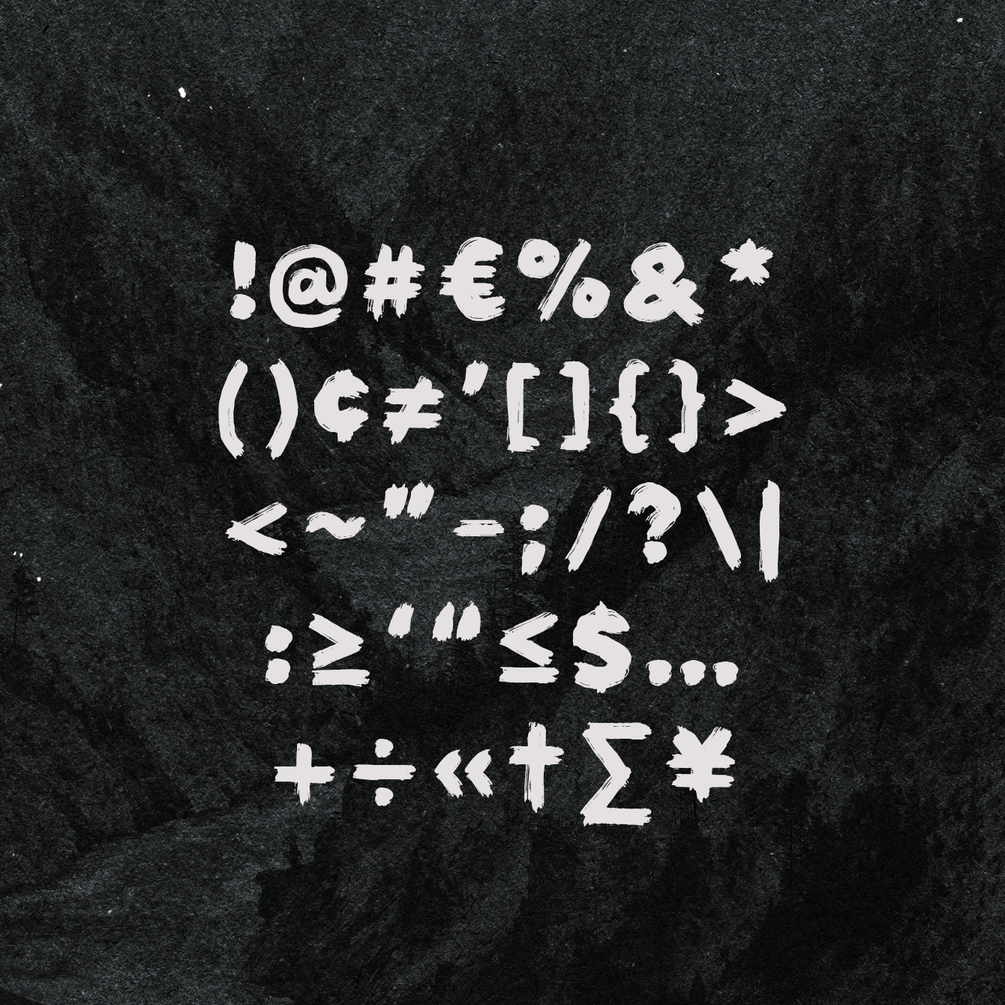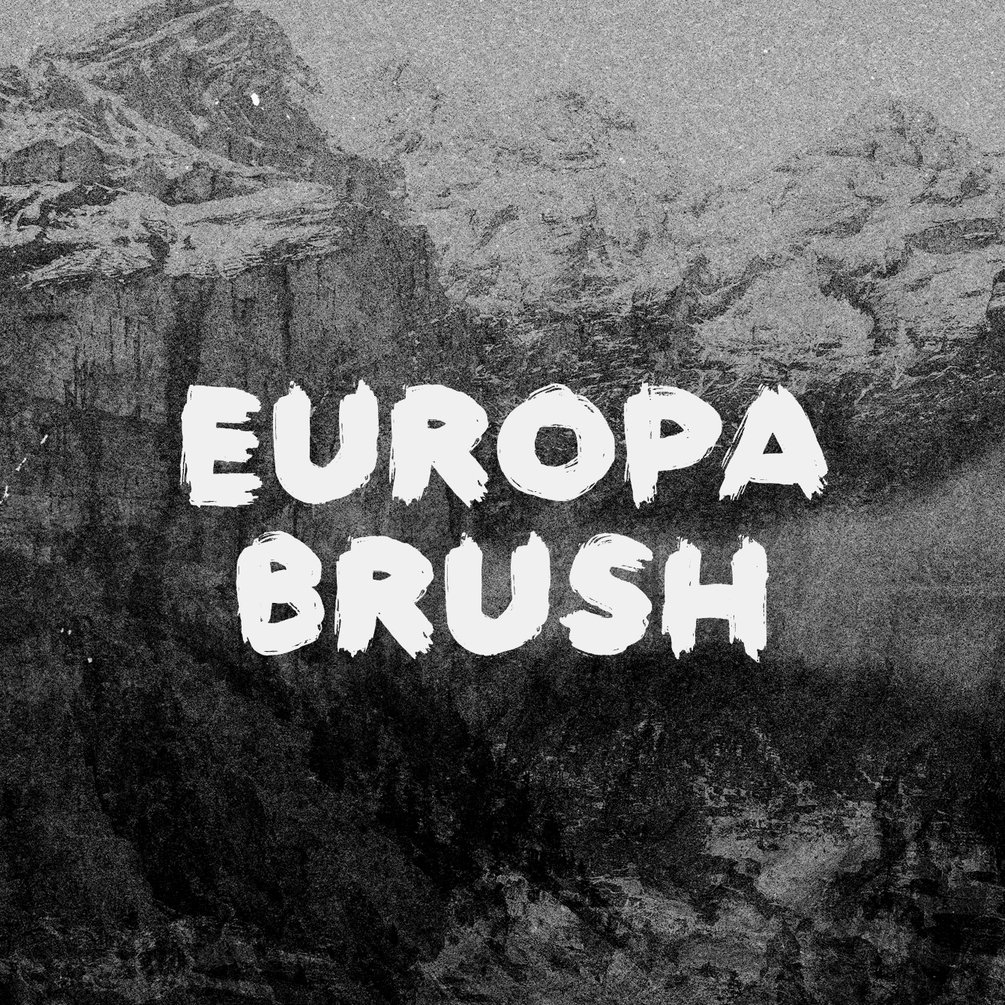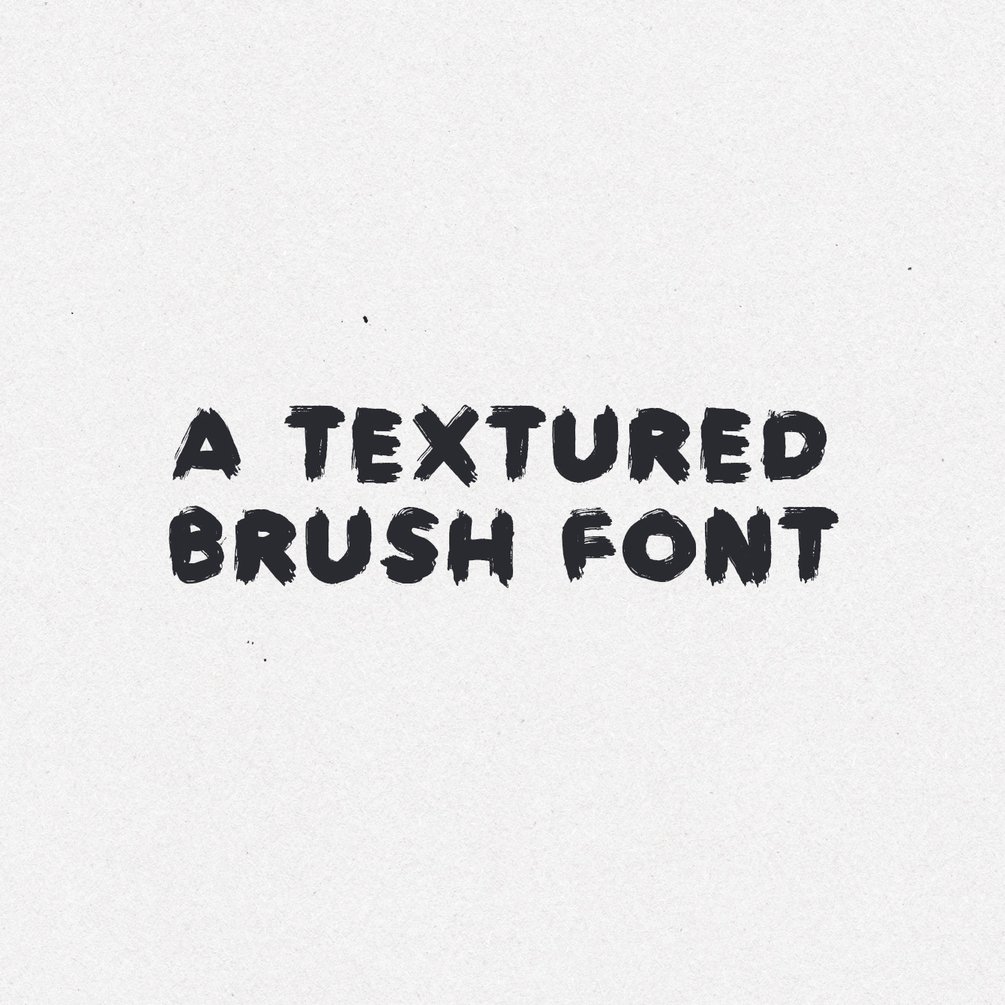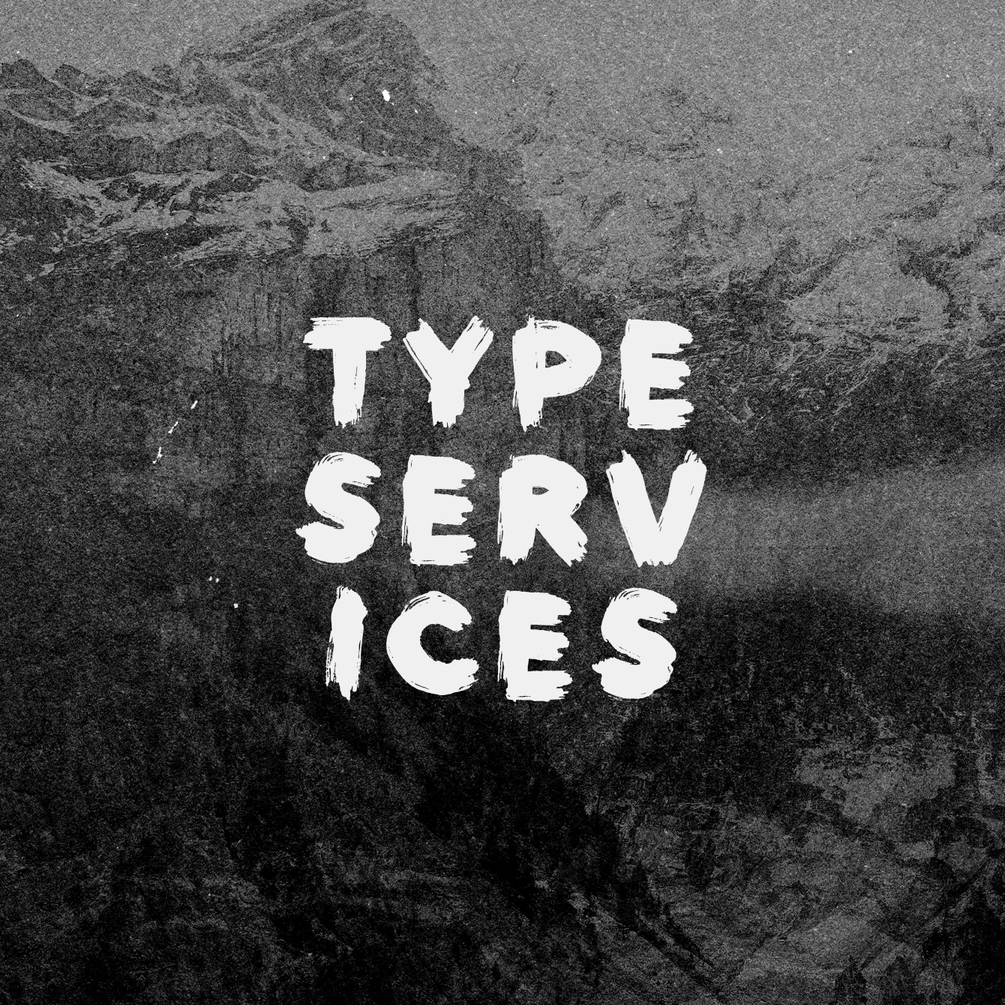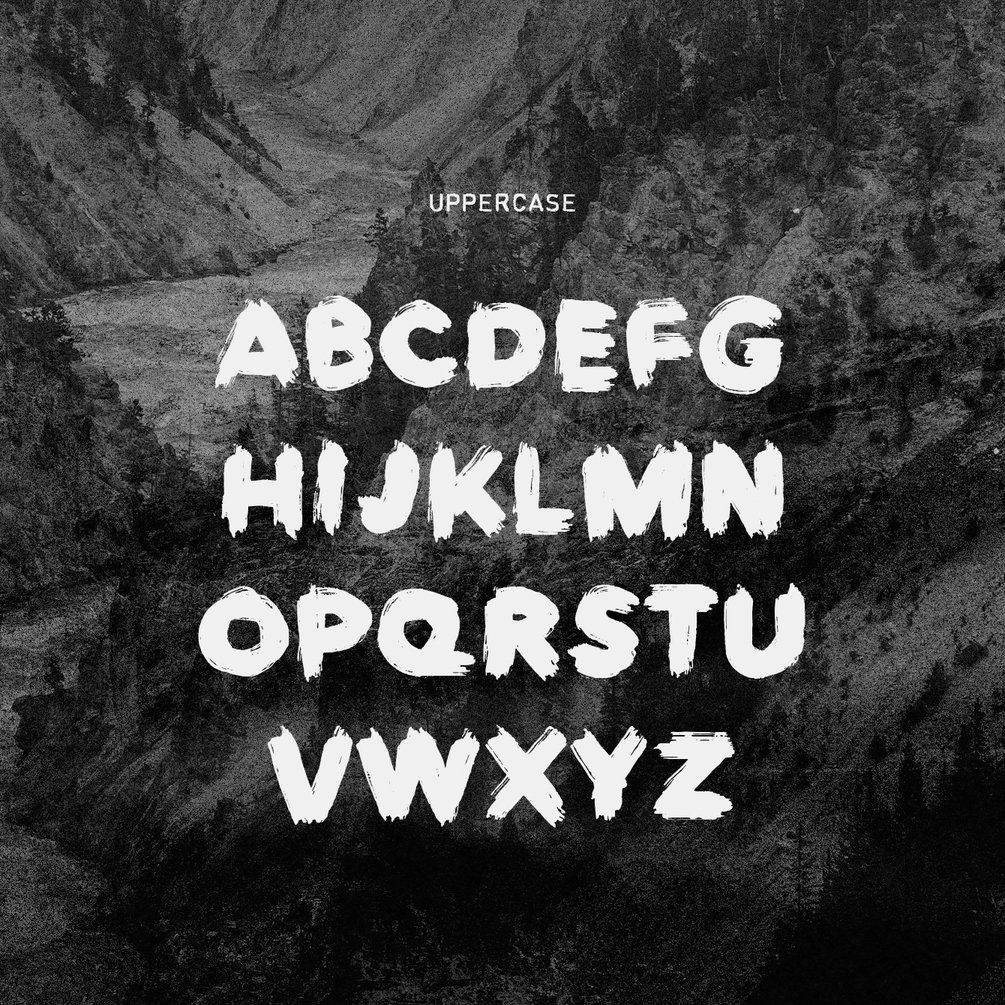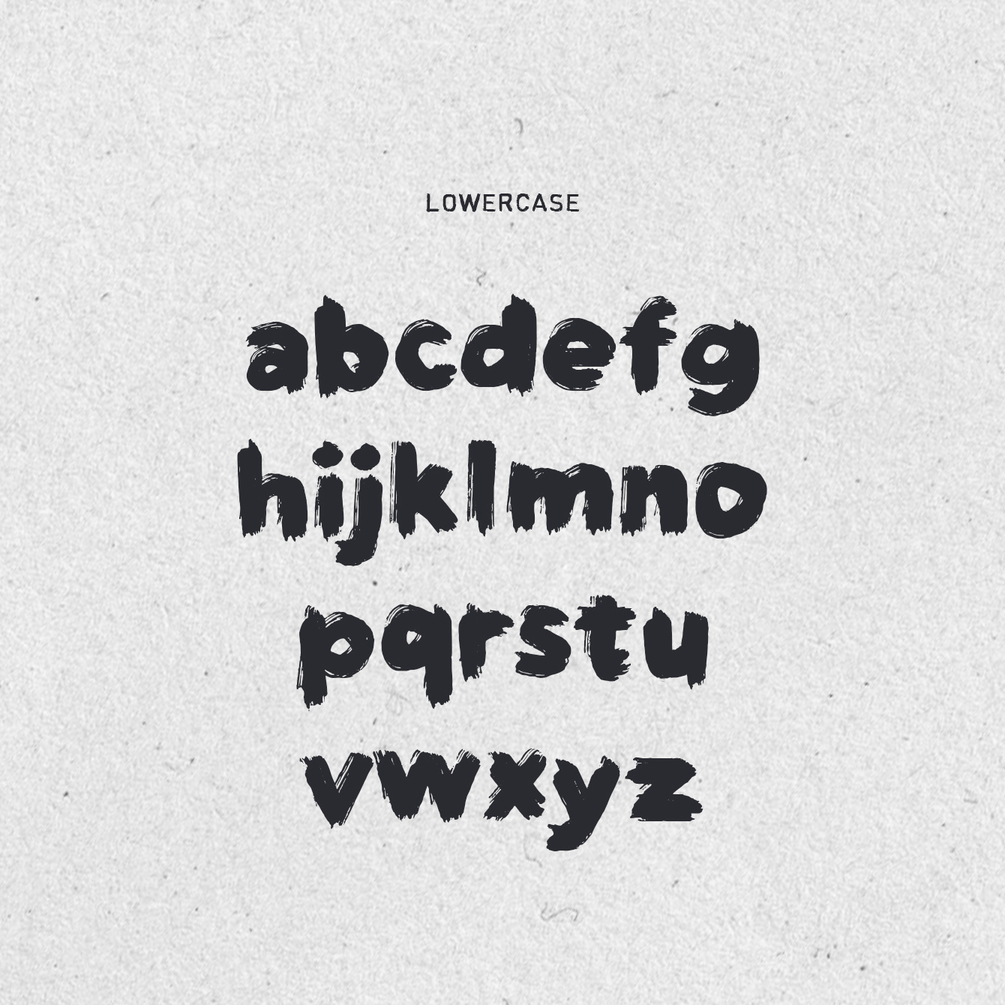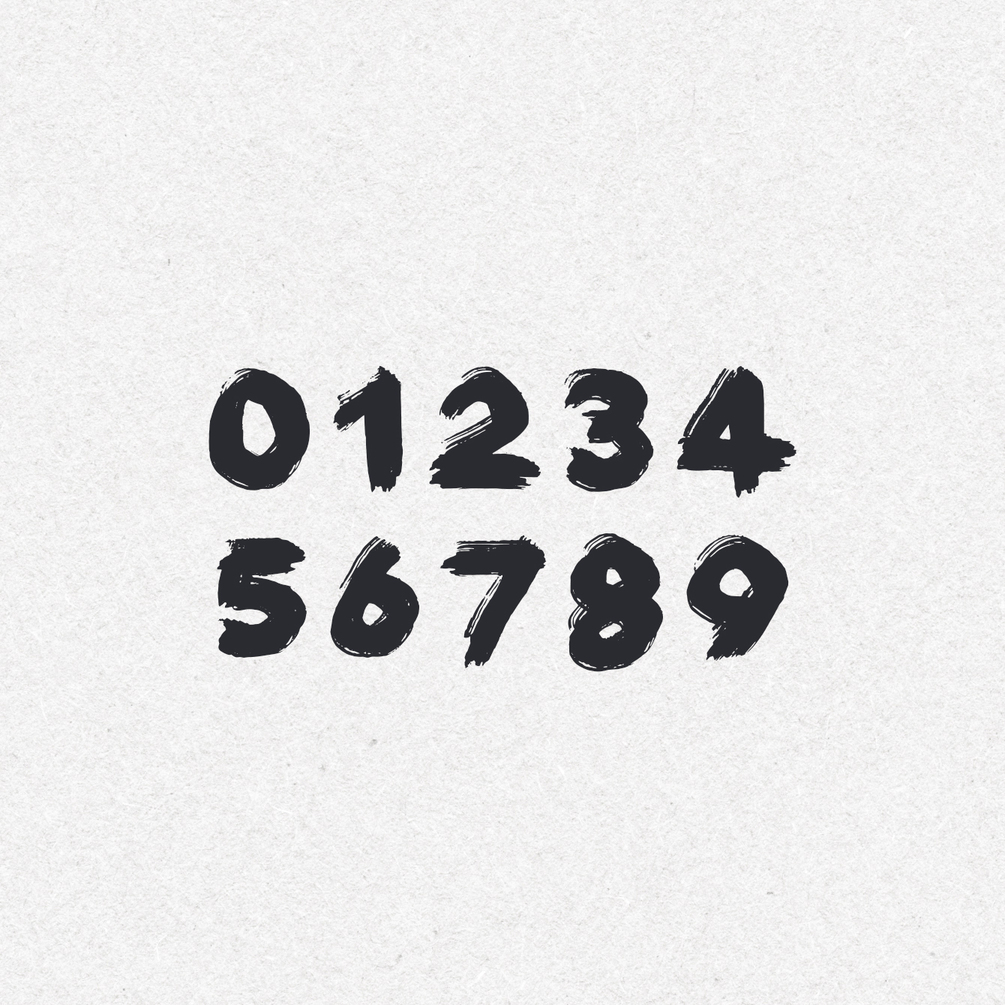
Europa Brush — FREE Textured Brush Font
Europa Brush is FREE textured san-serif font perfect for use in displays, branding projects, logos, signage, posters, invites and more. My aim with this font was to create a bold, yet natural painterly feel with heavily textured brush strokes. I have done very little editing to this font in order to maintain the dry brush style and emphasize the hand painted aesthetic.
•  One Font Weight
• Upper & Lowercase